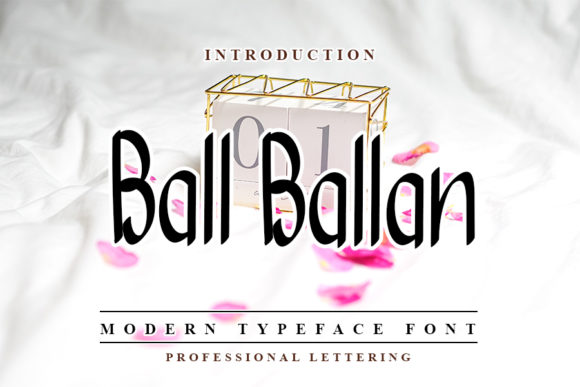
About Ball Ballan Font
Ball Ballan is a sweet and friendly handwritten font. Its natural and unique style makes it incredibly fitting to a large pool of designs. The only limit is your imagination!